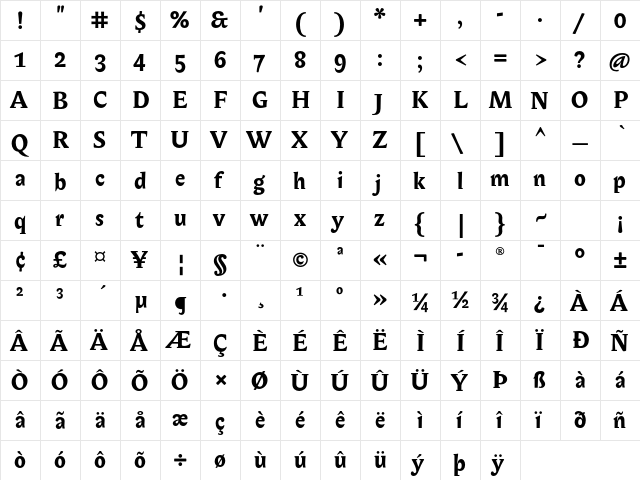
Biblon ITC Std Bold Font Preview
Biblon ITC Std Bold
Biblon ITC Std Bold Font Details
| Designer | Frantisek Storm |
Design Context for Biblon ITC Std Typeface
Biblon ITC Std offers clean, dependable letterforms without strong stylistic allegiance, making it a practical choice for designers who need flexibility. Its bold stroke weight gives it real presence on the page.